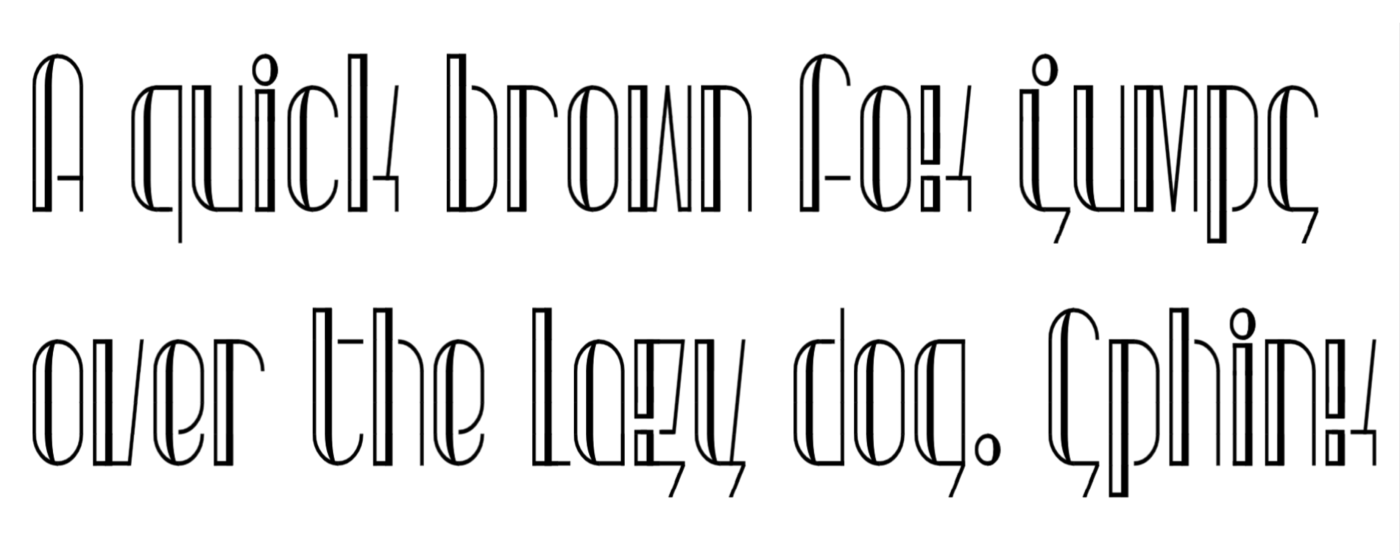
I think a little more spacing between the letters would suit the font better, but it's your decision.
Thanks for the suggestion, I went ahead and increased it.
A wonderful art deco font! 10/10